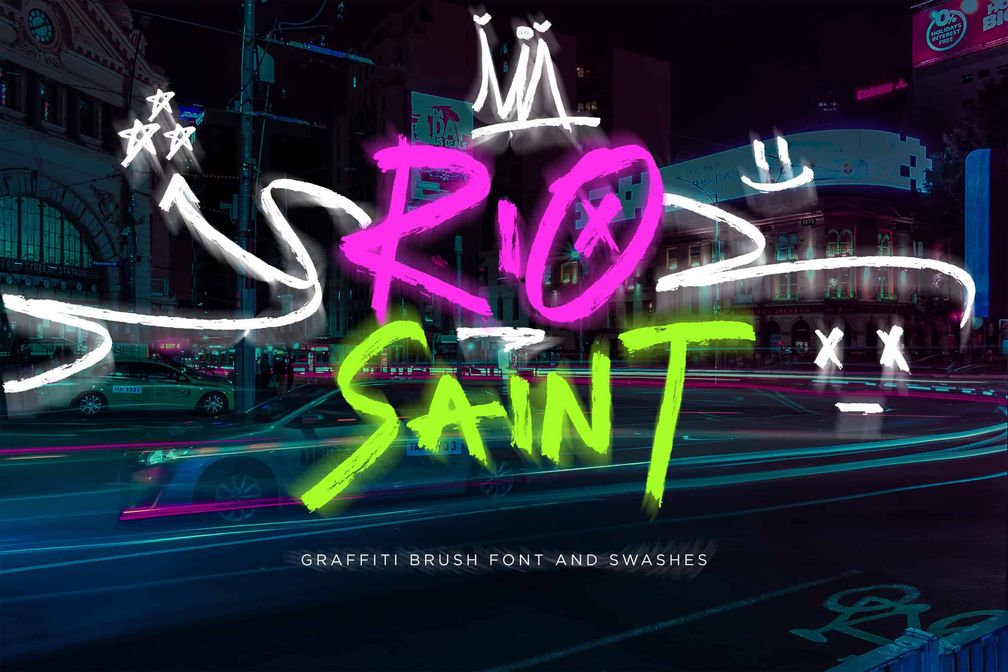
Rio Saint
Rio Saint – Graffiti Brush Font with Swashes
Rio Saint is a bold and expressive graffiti-style brush font, designed to bring urban energy and artistic flair to your projects. With its rough strokes and dynamic swashes, this typeface is perfect for streetwear branding, posters, album covers, and edgy design projects. Its hand-painted look adds a raw, authentic feel that stands out in any creative composition.
✔ Urban Graffiti Brush Style – Inspired by street art with a bold and energetic feel.
✔ Perfect for Bold & Edgy Designs – Ideal for posters, branding, merchandise, social media, and streetwear themes.
✔ Dynamic Swashes Included – Enhance your designs with stylish brushstroke accents.